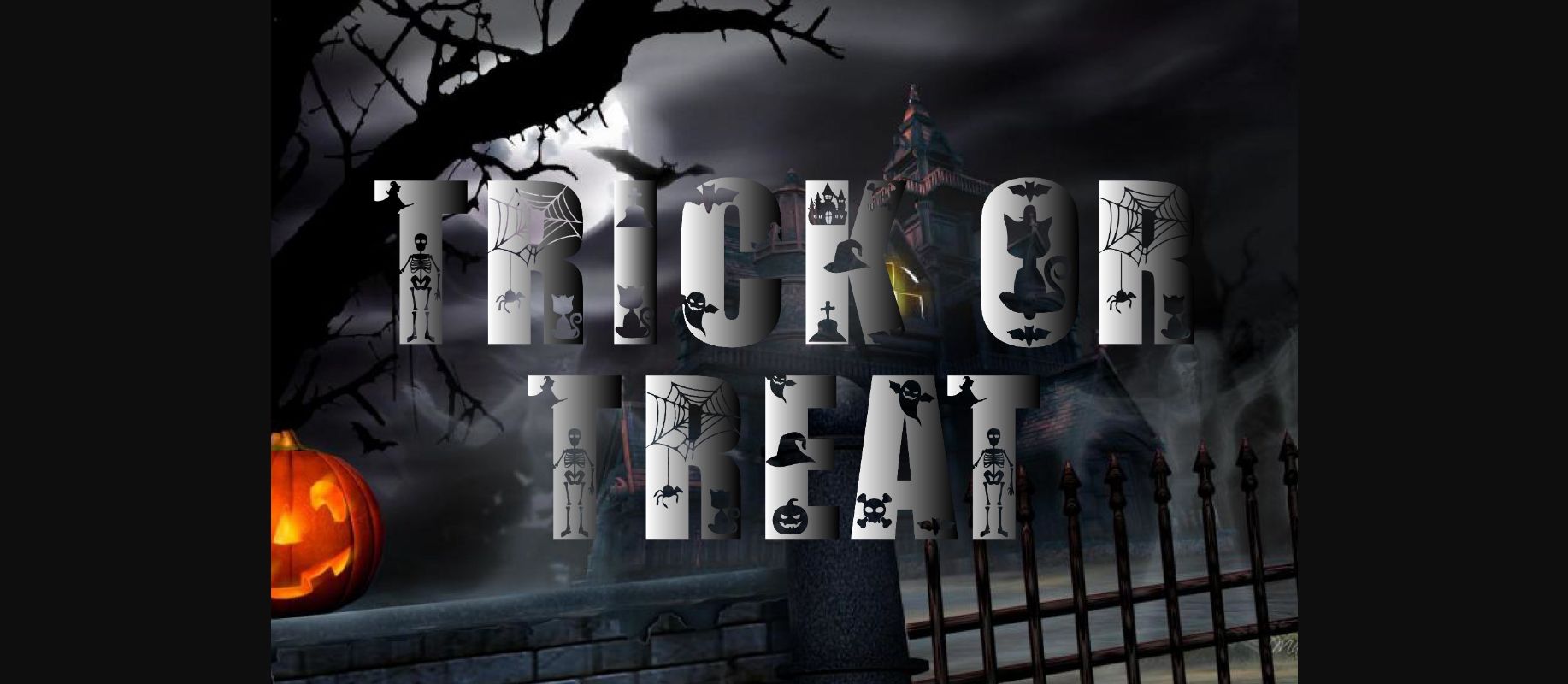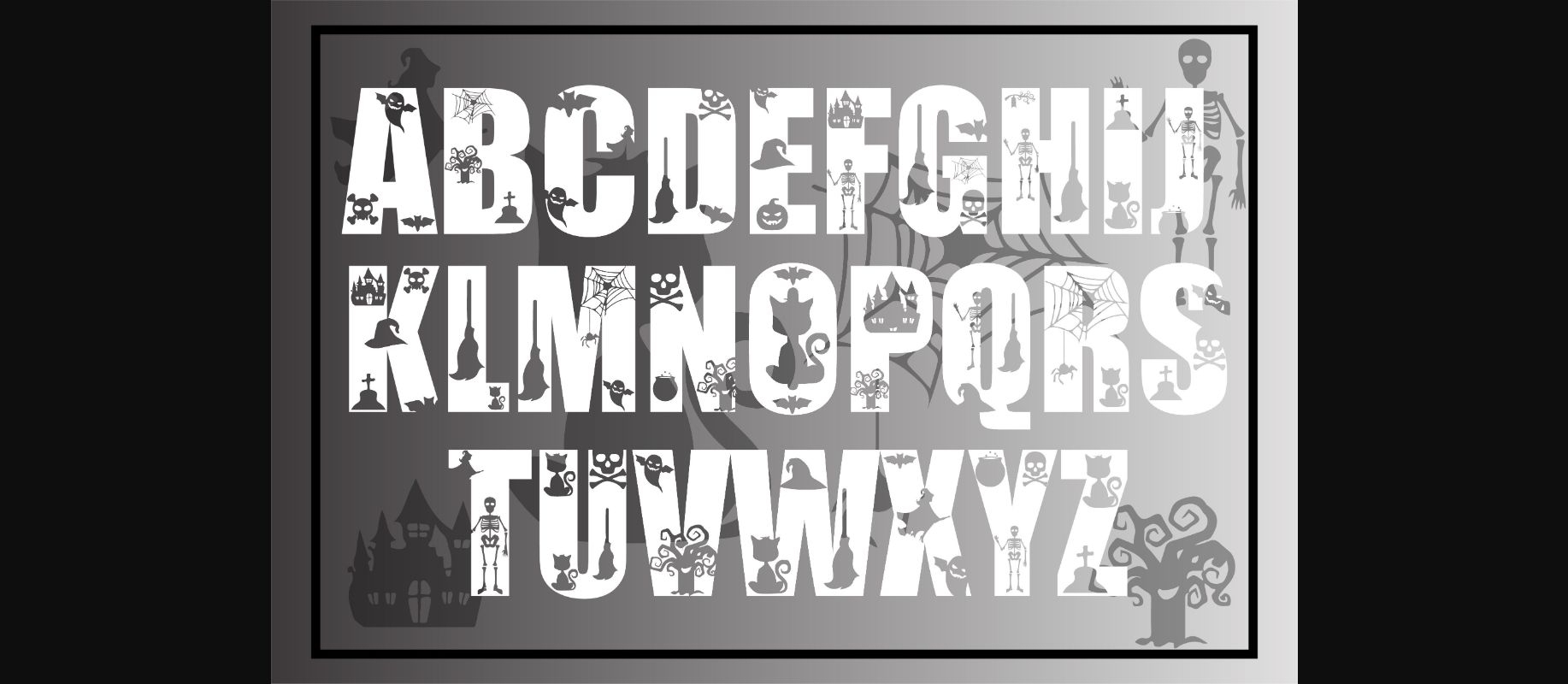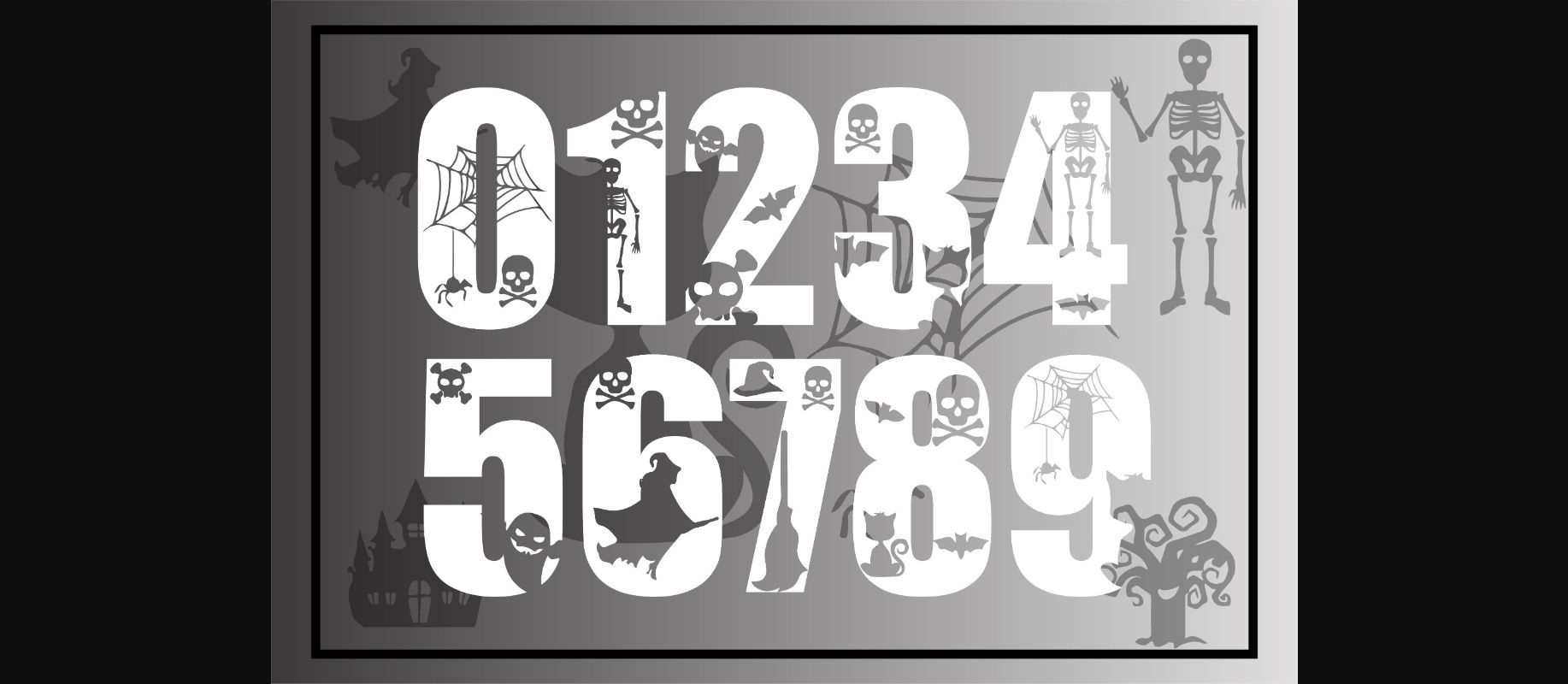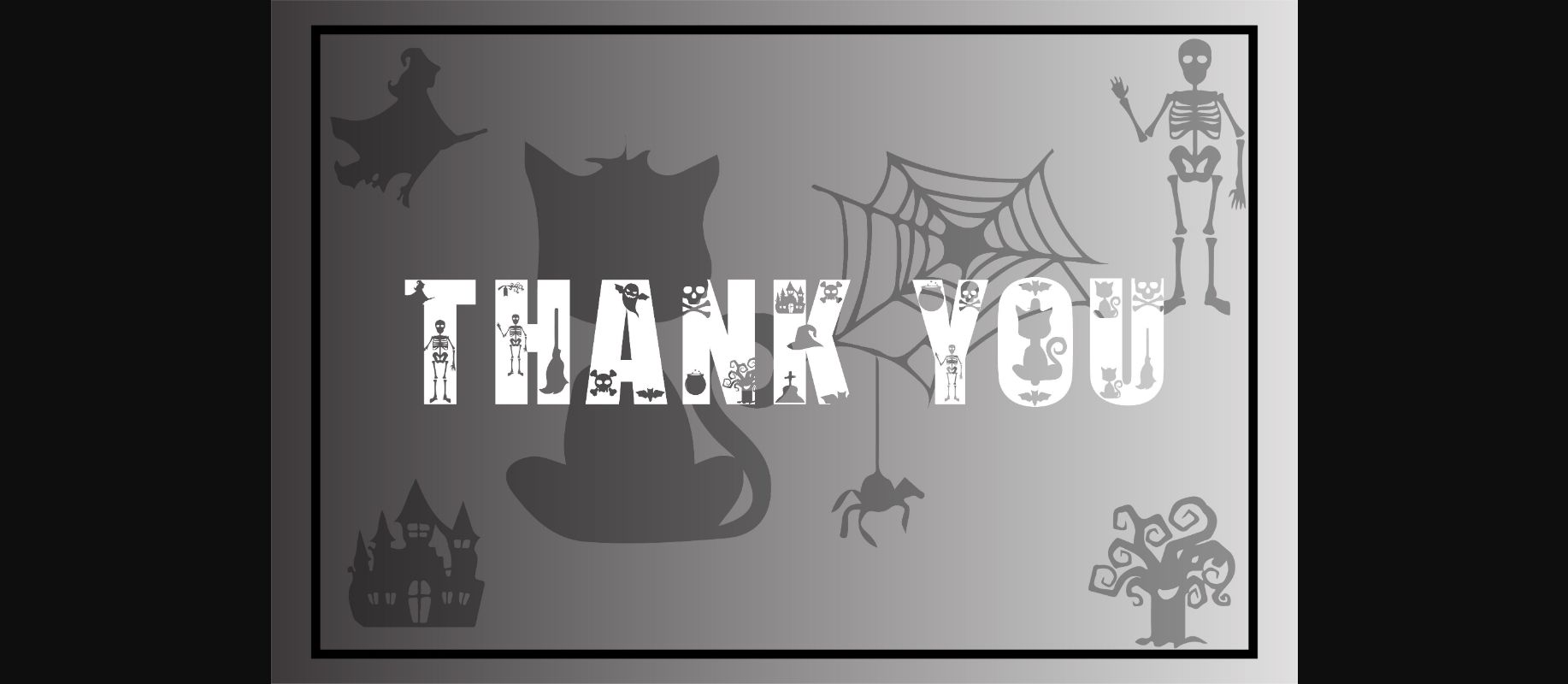
HomeDecorative FontsTrick or Treat Font Decorative Fonts Trick or Treat Font FacebookXPinterestWhatsApp 1 of 6 ... Trick or Treat Font Poster 2... Trick or Treat Font Poster 3... Trick or Treat Font Poster 4... Trick or Treat Font Poster 5... Trick or Treat Font Poster 6... About Trick or Treat Font Trick or Treat is a spooky and dramatic decorative font. It is perfectly suitable for any Halloween-related design or crafty idea! Add it confidently to your projects and you will love the results! DOWNLOAD NOW People also explored Queenzia Font Monalisa Font Samarquand Font Lettering Script Font Helo Xmas Font Jalapeno Font Coconut Font Fathan Font Love Baby Font 307 0 TagsTrick or Treat Font Previous articleSquare FontNext articleGroovy Vote Font LEAVE A REPLY Cancel reply Comment: Please enter your comment! Name:* Please enter your name here Email:* You have entered an incorrect email address! Please enter your email address here Website: Save my name, email, and website in this browser for the next time I comment. Personal Use Free Ryujin Attack Personal Use Free Read more about this font Whitelight Personal Use Free Read more about this font Squealer Personal Use Free Read more about this font Stone Garden Personal Use Free Read more about this font BLOG Free Fonts Risk: Why Free Fonts Can Be Dangerous for Designers Free Fonts Risk: Why Free Fonts Can Be Dangerous for Designers Using free fonts is a common practice in web and graphic design. However, the... Using Fonts in Digital Marketing: Tips to Strengthen Your Brand Identity Fonts That Capture the Spirit of New York City Transform Your Website: Elevate Your Typography with 7 Best Web Font Generators